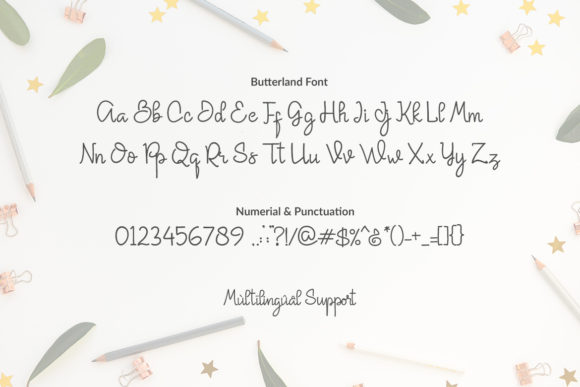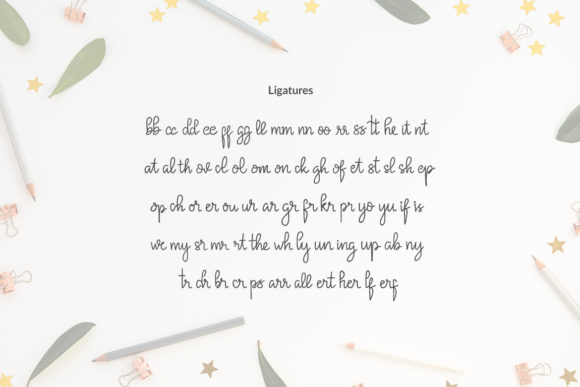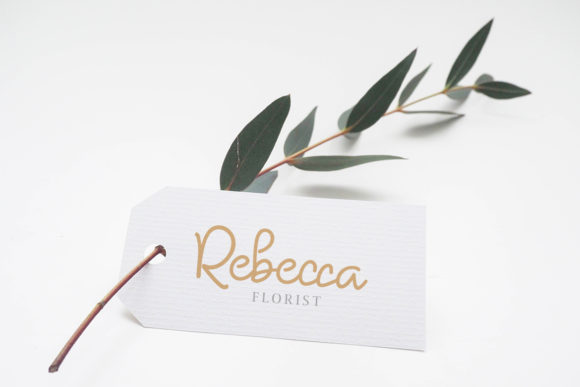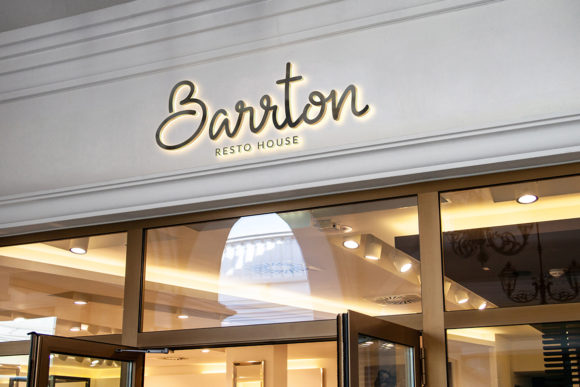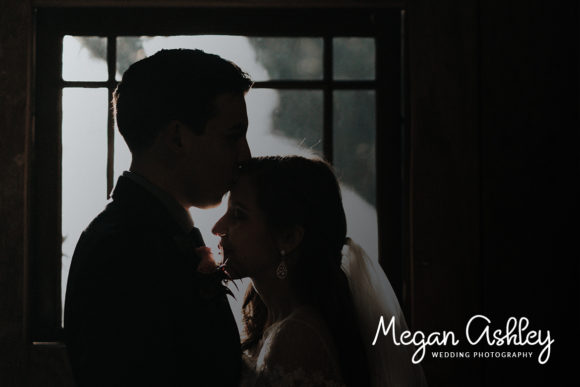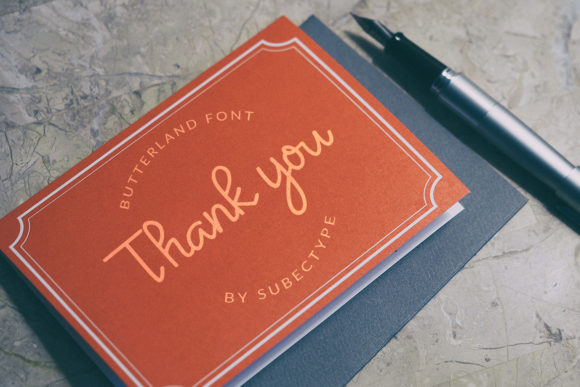
Discover the Elegance of Butterland Font: A Timeless Choice for Designers and Crafters
In the world of typography, few fonts manage to capture the essence of elegance and sophistication as effectively as the Butterland Font. This beautiful script font has been making waves in the design community, and for good reason. Its smooth, legible curves and classical look make it an ideal choice for a wide range of applications, from branding and marketing to advertising, invitations, and more.
The Characteristics of Butterland Font
The Butterland Font is distinguished by its unique blend of traditional and modern elements. Its flowing script style is reminiscent of classic calligraphy, yet its clean lines and legibility make it highly versatile and adaptable to various design contexts. Here are some key characteristics that set Butterland Font apart:
- Smooth and Legible: The font’s smooth curves and clear letterforms ensure that it remains easily readable, even at smaller sizes. This makes it perfect for body text, as well as for headlines and titles.
- Classical and Elegant: The Butterland Font boasts a timeless elegance that evokes a sense of luxury and sophistication. Its classic look makes it suitable for high-end branding, marketing materials, and special invitations.
- Versatile: Whether you’re designing a logo, brochure, or social media graphics, the Butterland Font can be used across various mediums and applications. Its flexibility allows designers to experiment with different styles and contexts.
Applications of Butterland Font
The versatility of the Butterland Font makes it an excellent choice for a wide range of design projects. Here are some popular applications where this font truly shines:
- Branding: Establish a luxurious and professional image with the Butterland Font. It’s perfect for logos, business cards, and letterheads.
- Marketing and Advertising: Capture your audience’s attention with elegant and sophisticated marketing materials, such as brochures, flyers, and posters.
- Invitations: Make your special events unforgettable with beautifully designed invitations featuring the Butterland Font.
- Packaging: Elevate your product packaging with a touch of elegance and sophistication, making your products stand out on store shelves.
Tips for Using Butterland Font Effectively
To maximize the impact of the Butterland Font in your designs, consider the following tips:
- Pair it with Contrasting Fonts: Combine the Butterland Font with simpler, sans-serif fonts to create visual contrast and hierarchy in your designs.
- Experiment with Colors: While the font itself is elegant, you can further enhance its beauty by experimenting with different colors and gradients.
- Play with Ligatures: Take advantage of the font’s ligatures to add a touch of sophistication and uniqueness to your text.
The Butterland Font is a powerful tool for designers and crafters looking to add a touch of elegance and sophistication to their work. Its smooth, legible script and classical look make it perfect for a wide range of applications, from branding and marketing to advertising and invitations. By understanding its characteristics, exploring its applications, and using it effectively, you can elevate your designs and create stunning visual experiences.